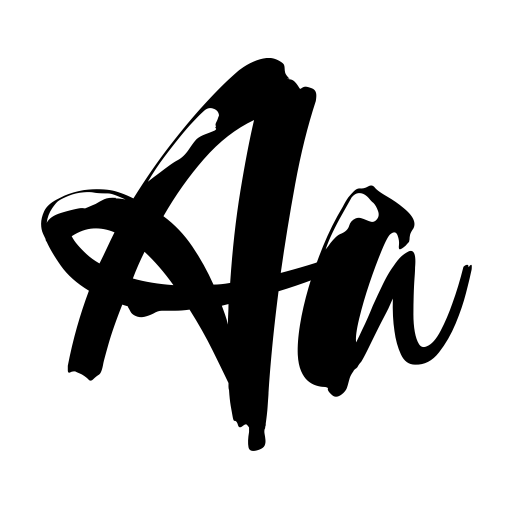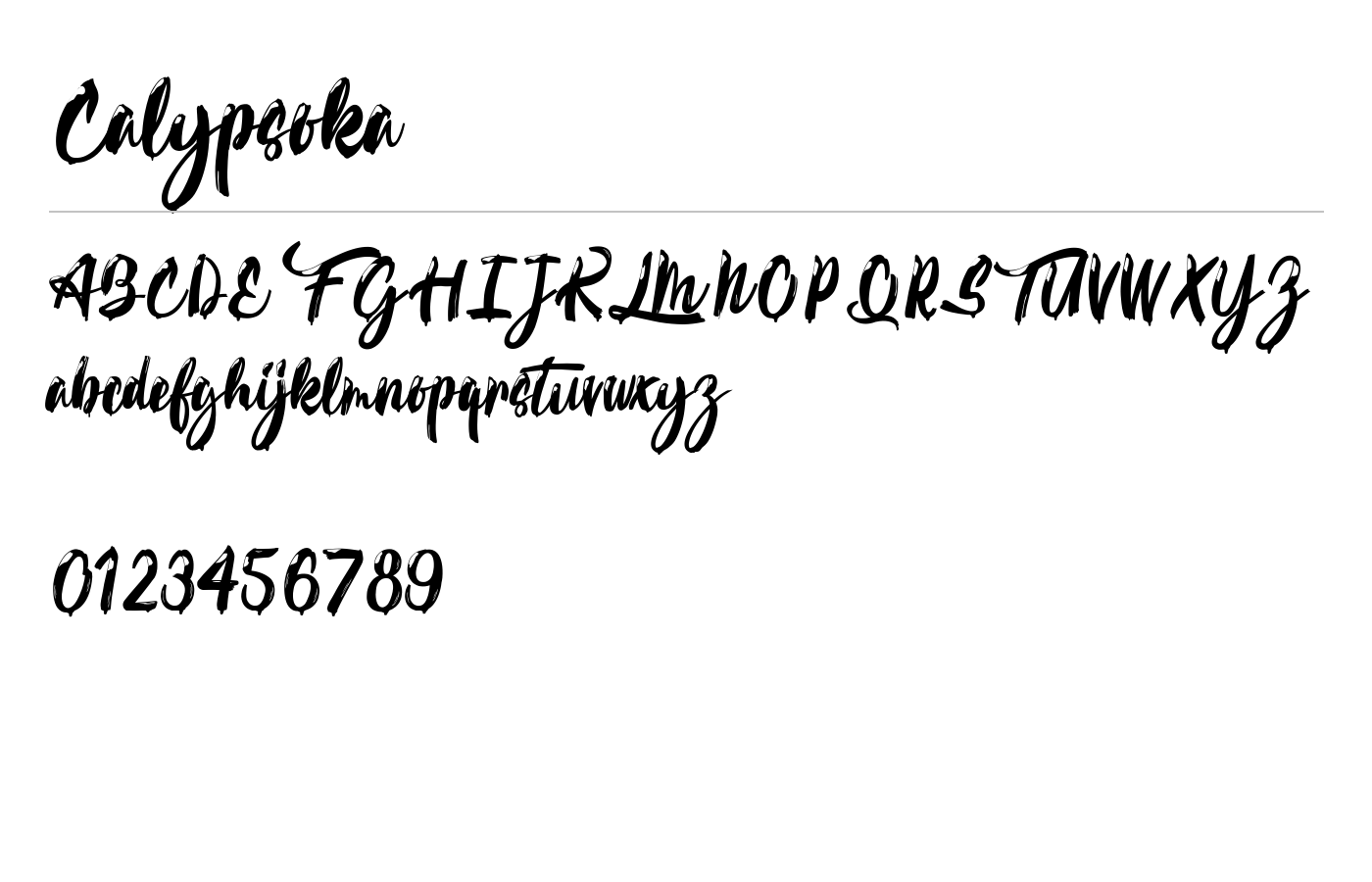
Calypsoka is a bold, brush script font with a lively, hand-painted feel, featuring high contrast and dynamic, flowing strokes. Its natural, casual style adds an artistic, spirited touch, making it perfect for creative branding, invitations, and expressive headlines that seek a personal and energetic vibe. This font works well where a bold, stylish, and friendly impression is desired.
Calypsoka Font
About Calypsoka Font
| Font family | Calypsoka Font |
| Designer | Octotype |